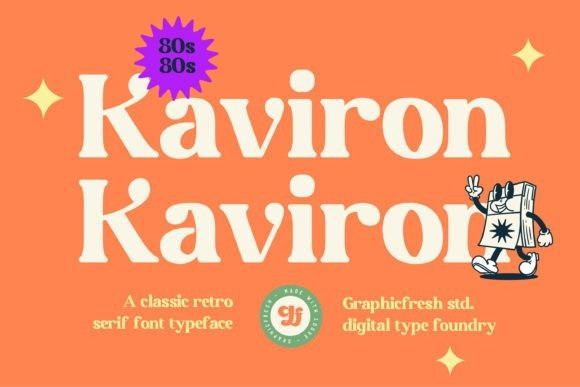
Kaviron Font
This one took a lot of work, but hopefully, you will like it! Kaviron Serif Font is the name of a street in a Greek city. A city with many civilizations. This font is designed in a more classic way. It therefore has its own experience in terms of use. This font is synonymous with 70s or 80s visual design that is bold and rugged. Hope you enjoy using this font and can come up with some smart and brilliant ideas in your designs.